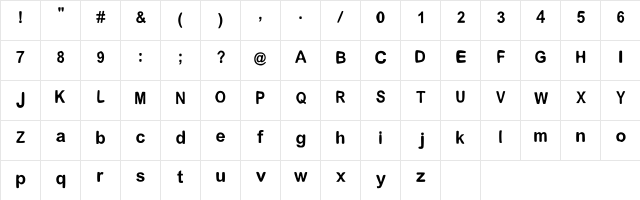
Fancycurvedy Regular
Design Context for Fancycurvedy Typeface
Fancycurvedy is a composed and adaptable typeface that performs quietly and consistently across a wide range of design contexts.